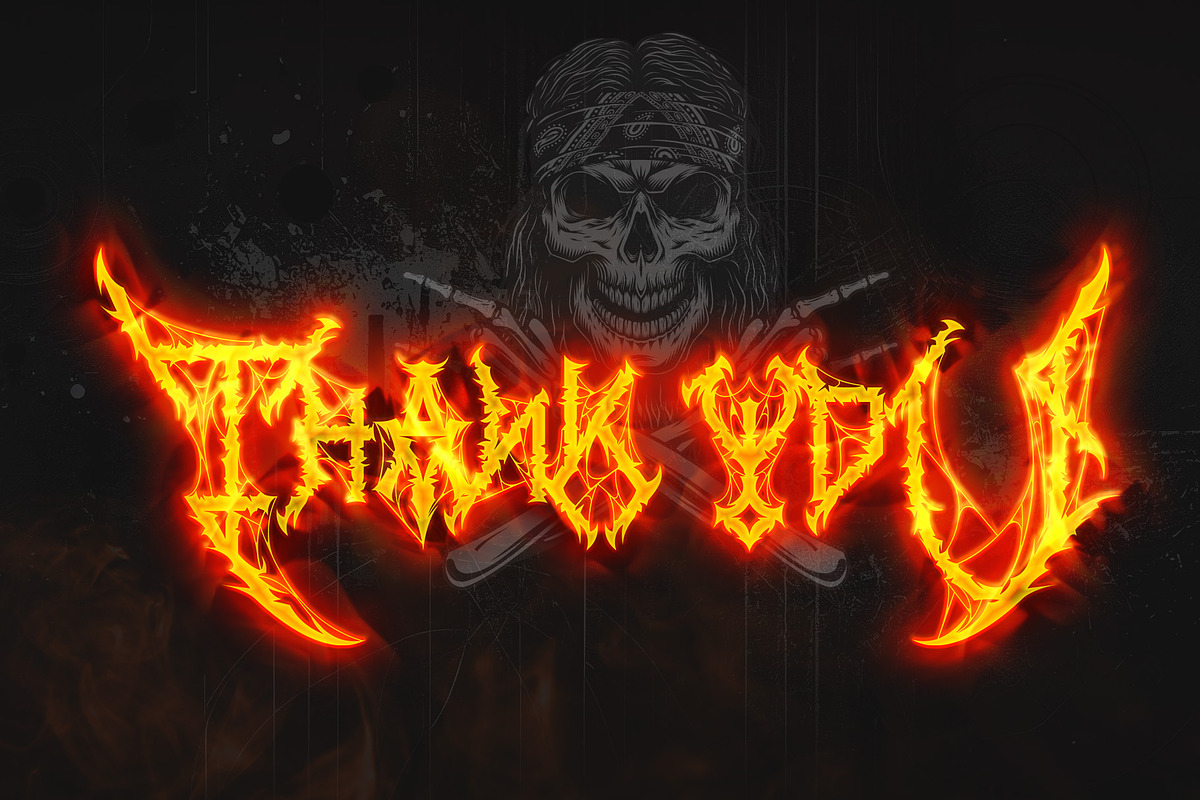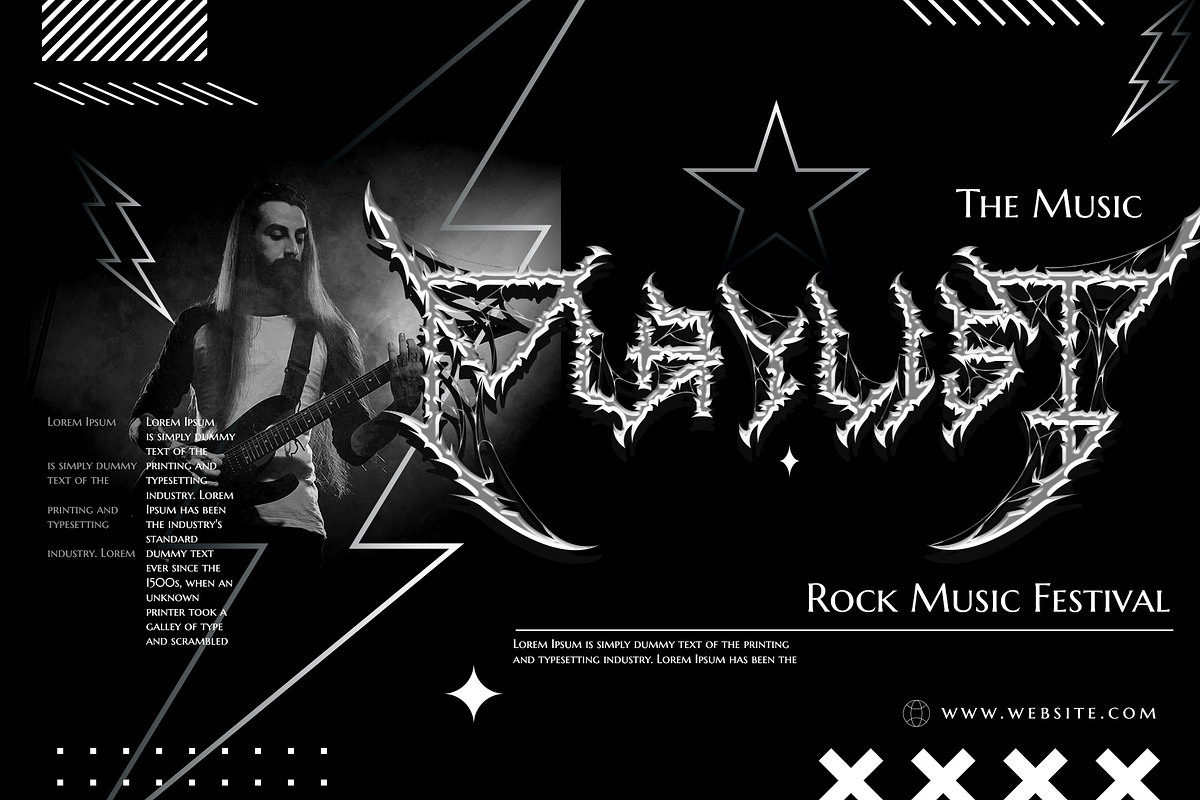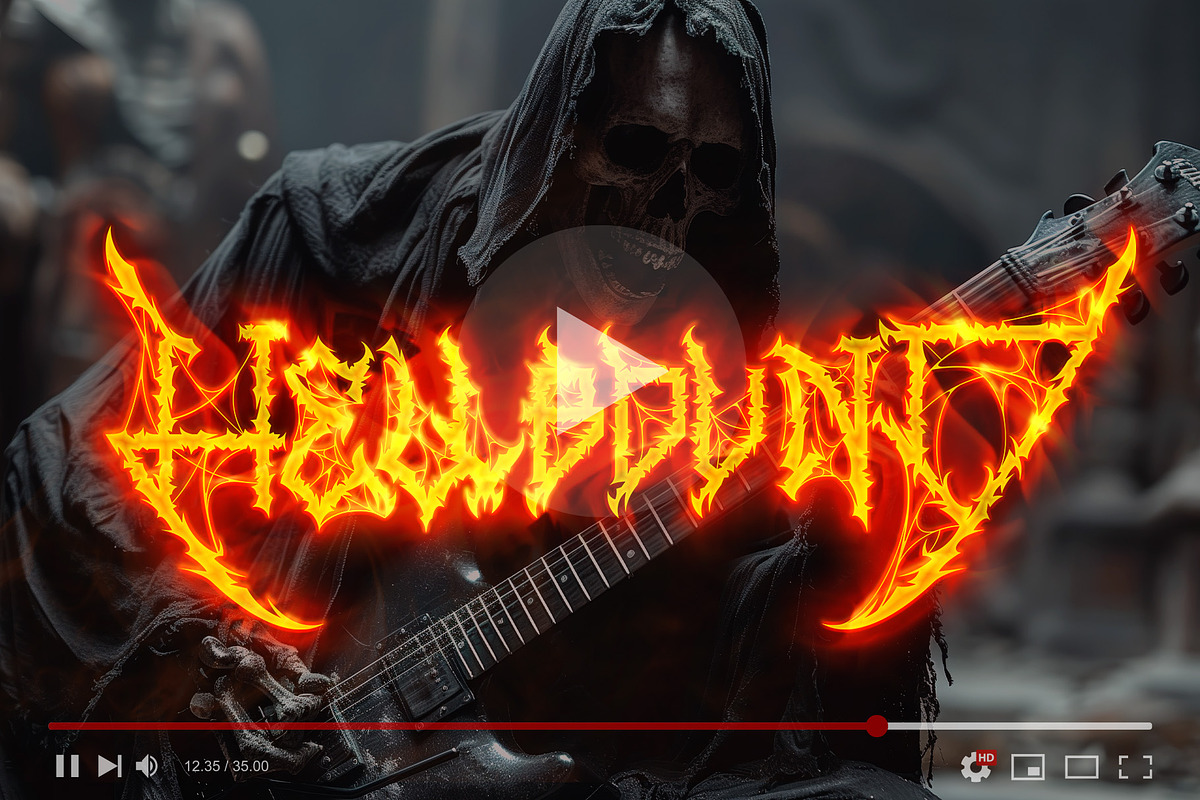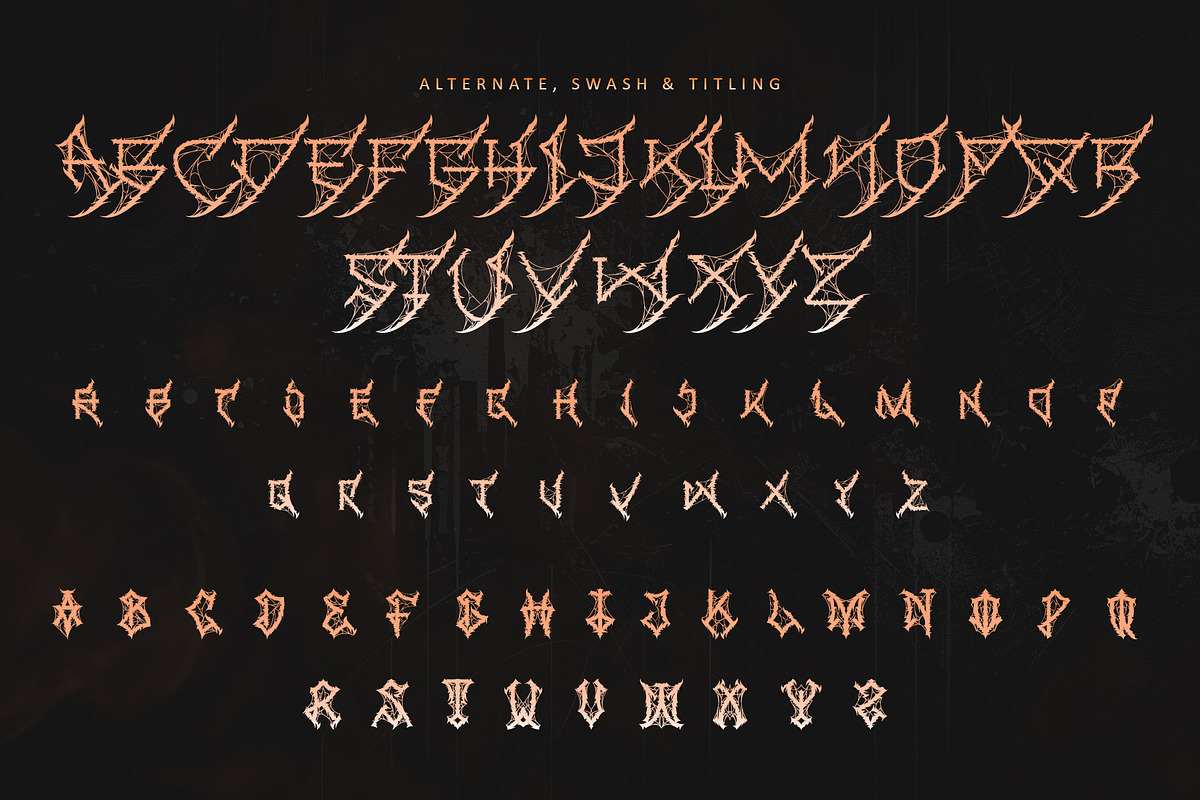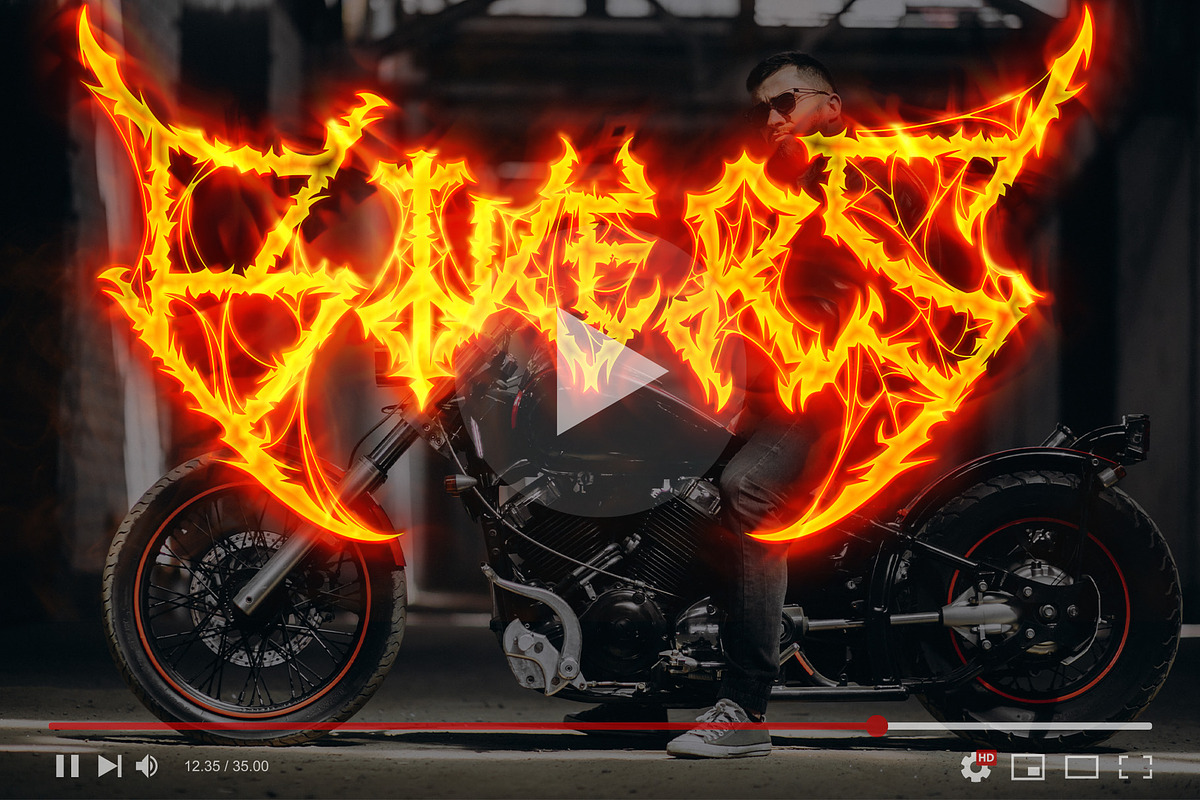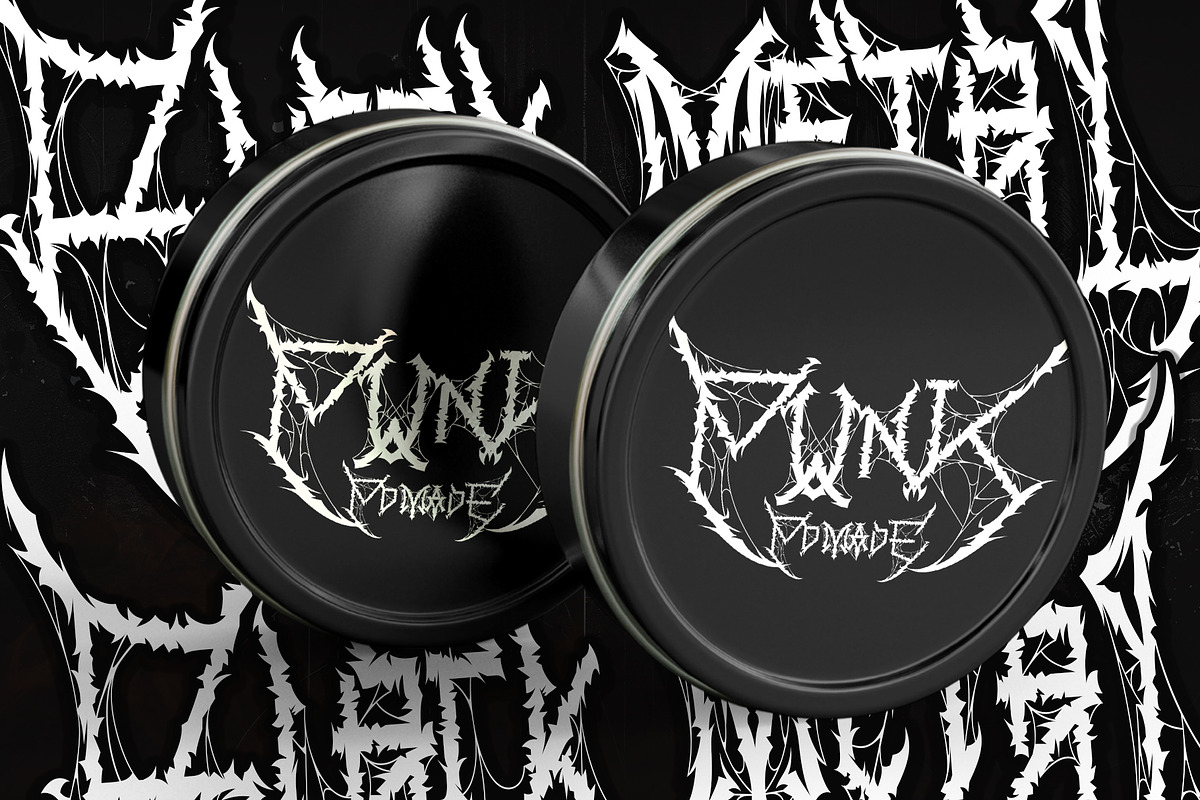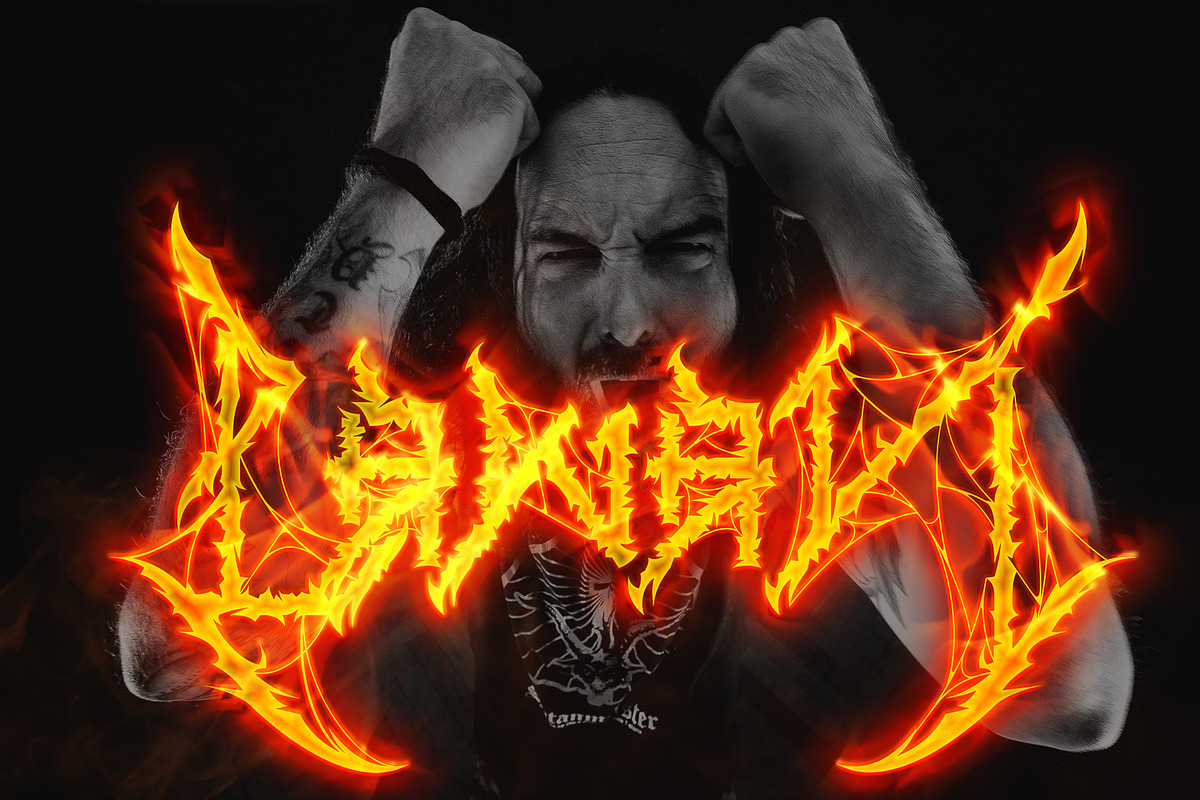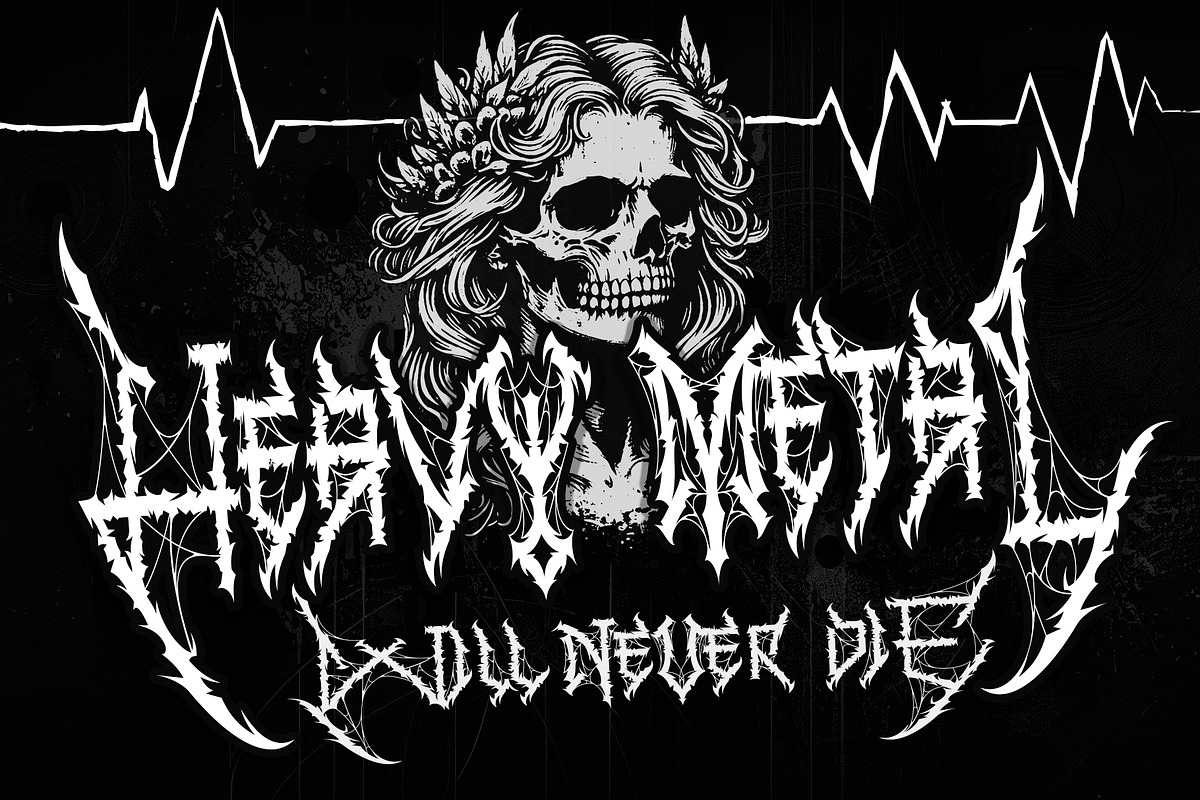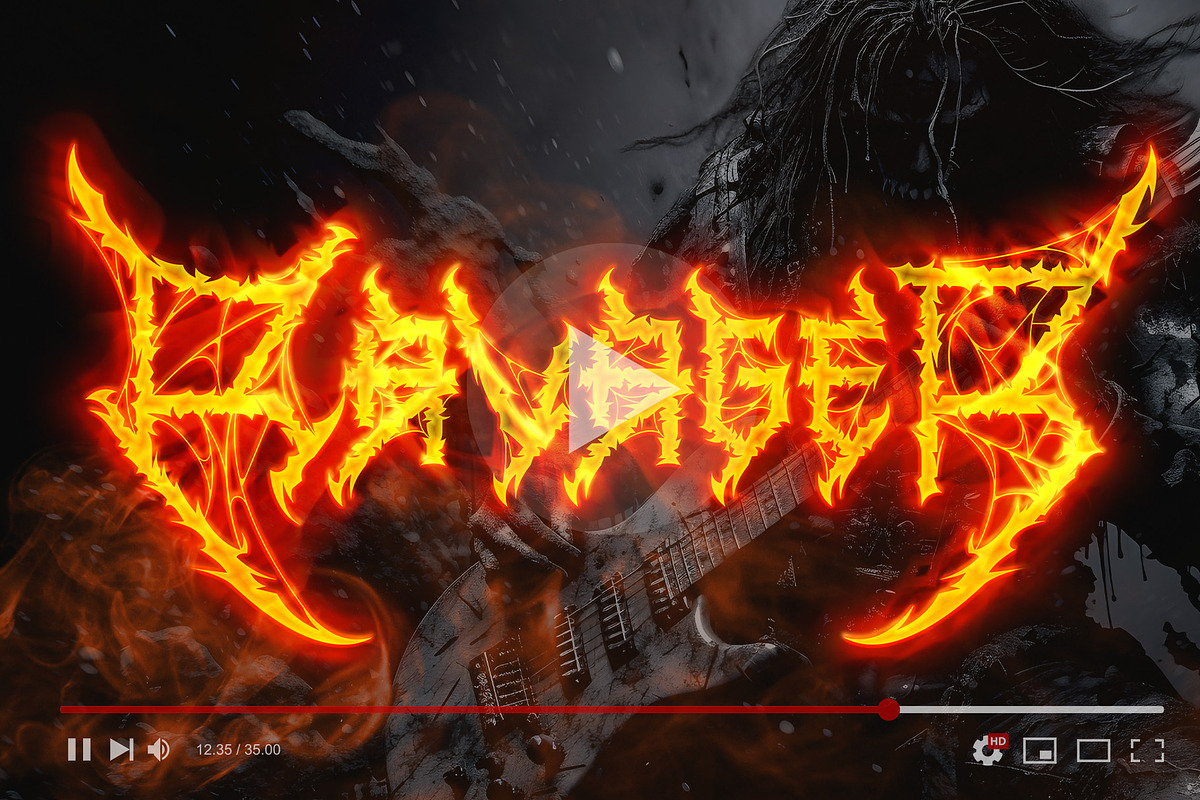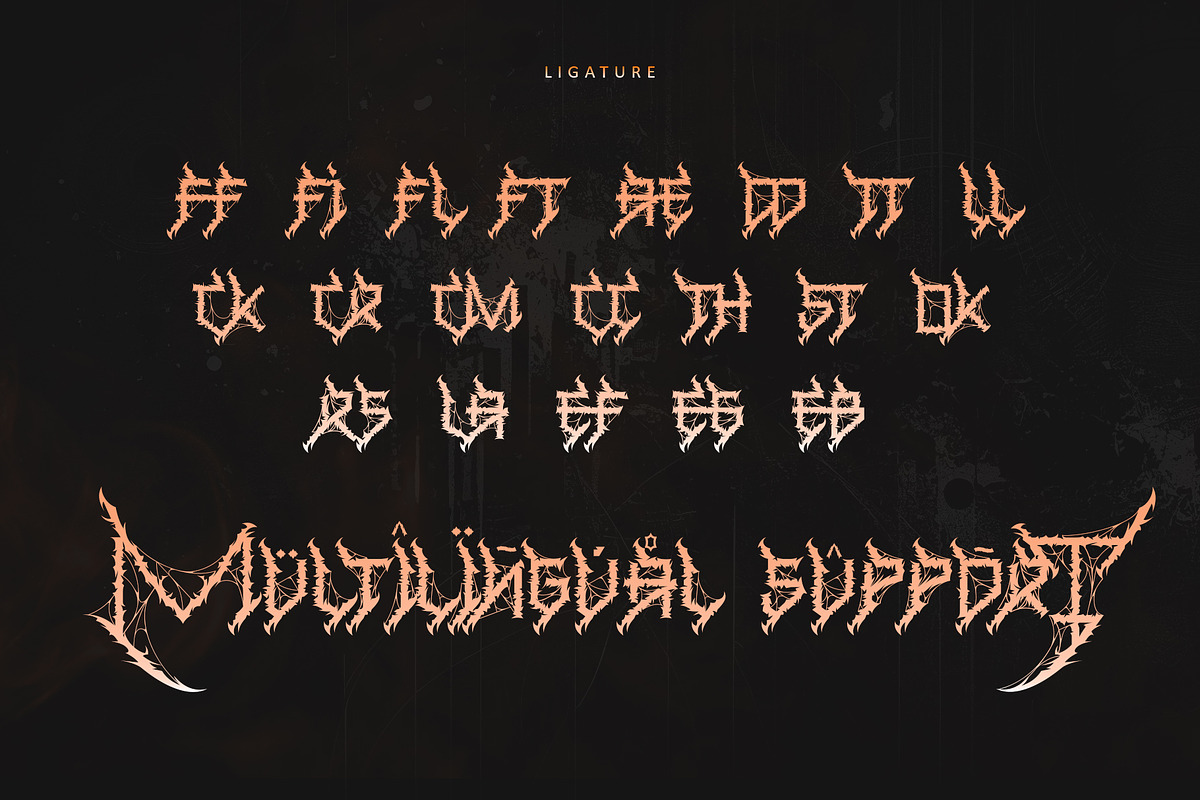
Metalico
Step into the dark embrace of Metalico, where the raw intensity of metal meets the timeless elegance of gothic blackletter. This font, born from the fusion of power and darkness, exudes an aura of unyielding strength and mystique. With its bold, jagged edges and intricate detailing, Metalico commands attention and infuses your designs with a formidable presence. Perfect for album covers, logos, band merchandise, movie titles, and posters, this font ensures your work resonates with the primal energy of metal. Let Metalico be the crown jewel of your gothic creations, leaving an indelible mark with every stroke.
- Support multilingual; ä ö ü Ä Ö Ü ß ¿ ¡ *Numerals & Punctuation
- uppercase letters
- Alternate, swash, titling, & Ligature